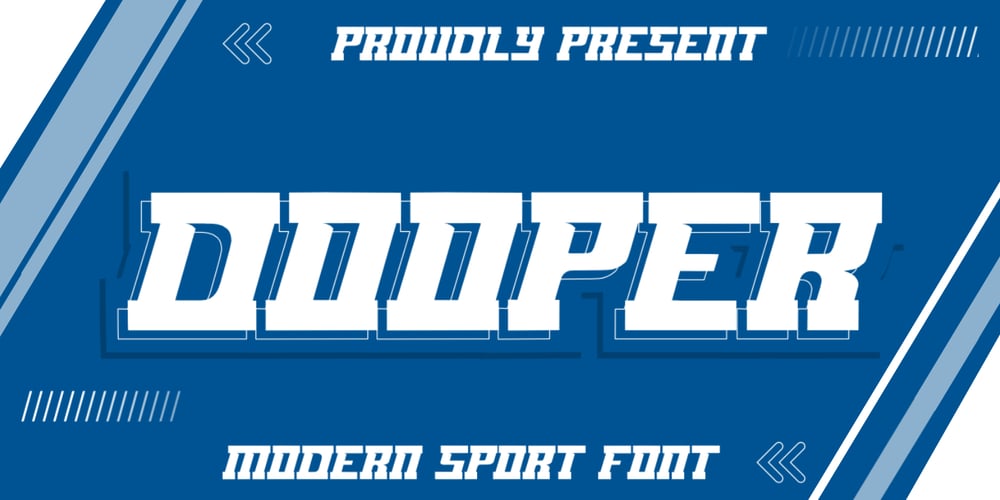
Dooper Sport Font Family was designed by Bayu Aji Fais Mursid and published by Bayuktx. Dooper Sport contains 1 styles and family package options. Hello,Thank you for visiting my products, we will give you the best choice.DOOPER Sport Font, This font is made with a high premium quality level which you can use as flyers, quotes, posters, banners, packaging, merchandise, logotypes and much more.FEATURES :* Uppercase* Lowercase* Number* Punctuation* Multilingual* PUA Encode* OpentypeFILES INCLUDED :* DOOPERThank you